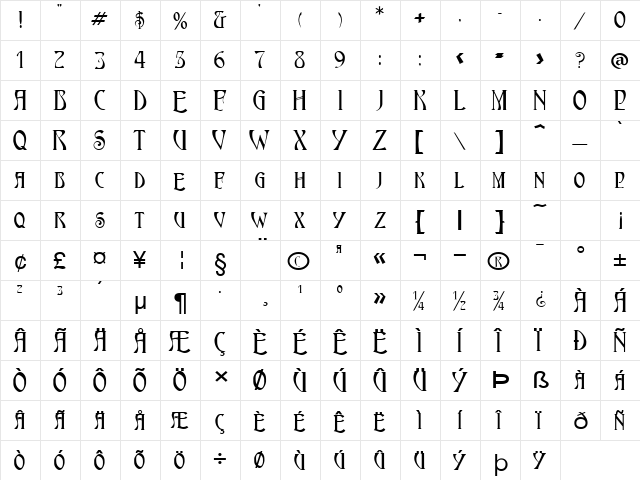
Nouveau-Extended Normal Font Preview
Nouveau-Extended Normal
Nouveau-Extended Normal Font Details
Design Context for Nouveau-Extended Typeface
Nouveau-Extended is a composed and adaptable typeface that performs quietly and consistently across a wide range of design contexts.